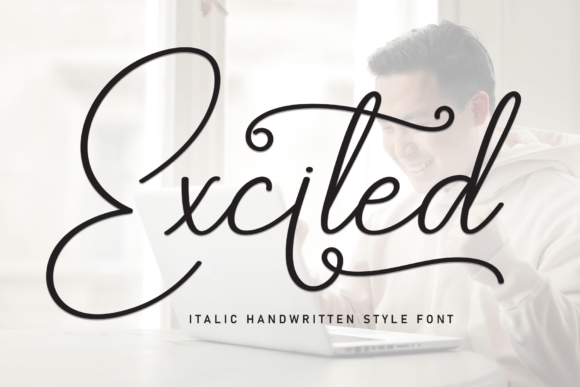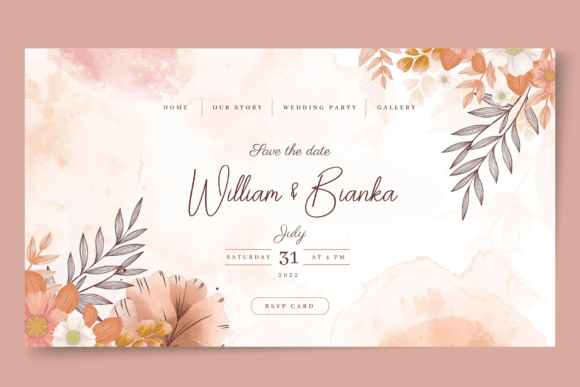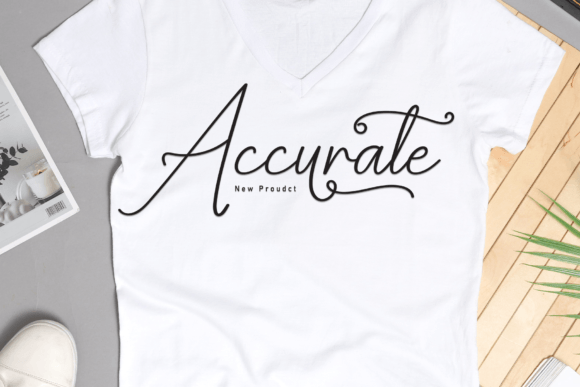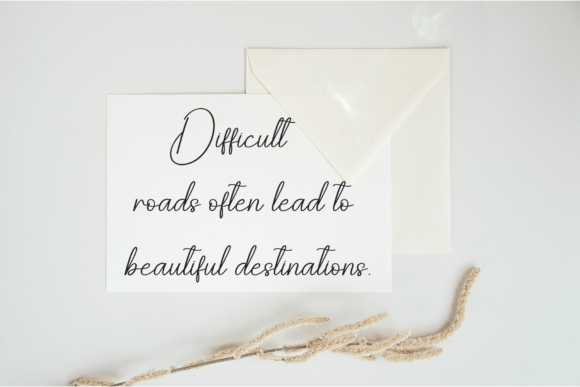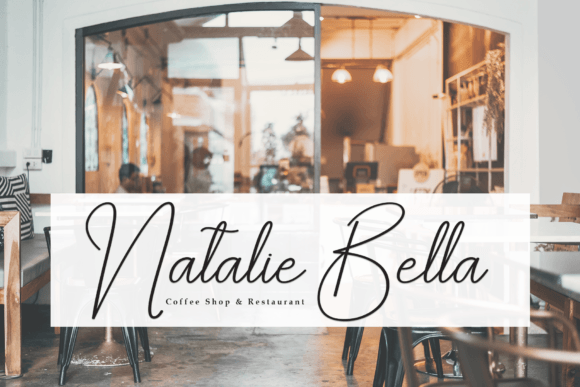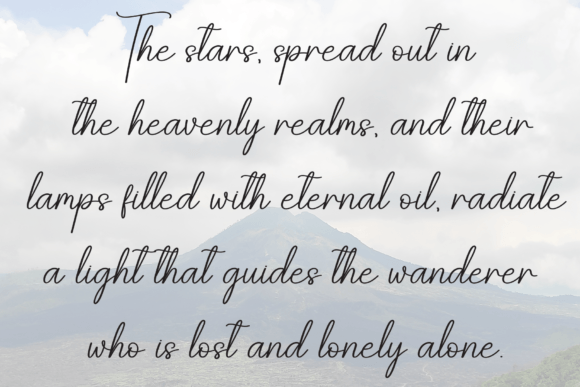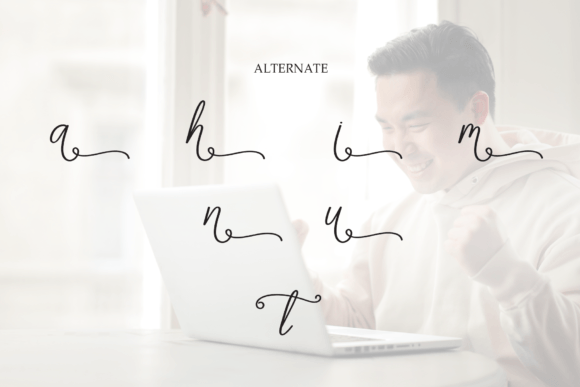
The Perfect Font to Match Your Creative Spark
Have you ever been in the middle of a creative project, staring at a blank page, and suddenly, the perfect idea strikes you? The excitement is palpable, and your imagination runs wild. You can almost feel the font coming to life in your mind’s eye. That’s the magic of creating something new, and it’s exactly what the Excited Font is designed to capture.
This beautiful, handwritten font is the perfect companion for designers looking to add a touch of personality to their work. With its natural, unique style, the Excited Font is incredibly versatile and can be used in a wide range of designs, from invitations and greeting cards to logos and branding materials.
Excited Font Key Features
- Unique Character Set: Excited Font features a unique character set that includes a wide range of special characters, including emojis, symbols, and accents, making it ideal for creative and expressive designs.
- Stylistic Alternates: The font includes stylistic alternates for many characters, allowing designers to add an extra layer of personality to their work.
Designer Review: Excited Font
Overall, I think “Excited Font” is a solid addition to any design toolkit. Here are some of its standout features:
- ✨ It’s incredibly versatile, making it suitable for a wide range of projects, from social media graphics to presentations.
- ✨ The font’s energetic feel is perfect for capturing attention and conveying excitement, which is exactly what it’s designed for.
- ✨ It’s well-suited for digital applications, with a clean and crisp appearance that looks great on screens.
However, there are some limitations to keep in mind:
- ⚠️ The font’s bold, playful style may not be suitable for more formal or professional projects.
- ⚠️ In some cases, the font’s lines may become too thick or thin depending on the size and color used, which can affect readability.
Overall, I think “Excited Font” is a great choice for designers looking to add some energy and excitement to their projects. While it may not be the best fit for every project, it’s definitely worth having in your toolkit. Just be mindful of its limitations and use it accordingly.
Getting the Most Out of Excited Font
Use Excited Font to add emphasis and energy to your text. It’s particularly effective for headings, titles, and call-to-actions.
Experiment with different font sizes and styles to create visual interest and hierarchy in your design.
Excited Font is commonly used in:
- Call-to-actions
- Emphasis text
Alternatives to Excited Font
Dancing Script
Dancing Script is a beautiful, elegant script font that is perfect for adding a touch of sophistication to your designs. It is ideal for use in titles, headings, and other emphasis areas where you want to convey a sense of luxury or high-end quality.
Compared to Excited Font, Dancing Script is more refined and less bold. While Excited Font is great for creating a sense of energy and excitement, Dancing Script is better suited for conveying elegance and refinement. Use Dancing Script when you want to add a touch of class to your design.
Pacifico is a modern script font that is perfect for creating a sense of relaxation and calmness. It is ideal for use in titles, headings, and other emphasis areas where you want to convey a sense of serenity or tranquility.
Compared to Excited Font, Pacifico is more laid-back and less energetic. While Excited Font is great for creating a sense of excitement and urgency, Pacifico is better suited for conveying a sense of calmness and relaxation. Use Pacifico when you want to create a peaceful and soothing atmosphere in your design.